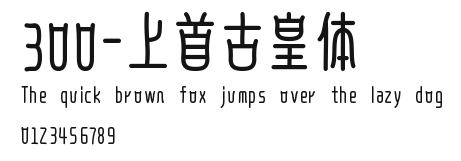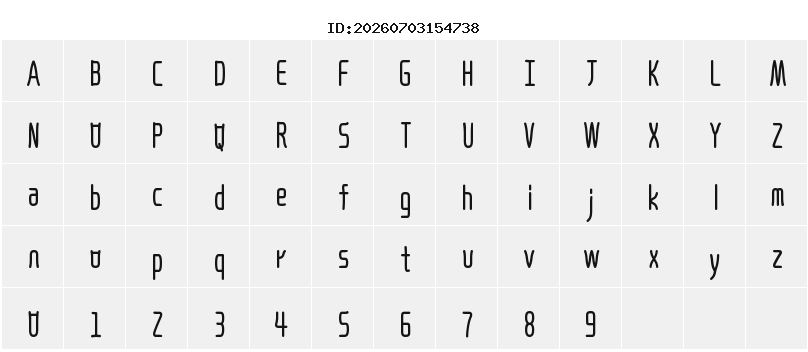
300-上首古皇体 Preview
• Font Name: 300-上首古皇体
• Full Font Name: 300-上首古皇体
About 300-上首古皇体.ttf
300-上首古皇体.ttf is a modern, elegant sans-serif font designed for ultimate readability and visual harmony. Perfect for branding, headlines, web design, and print materials.